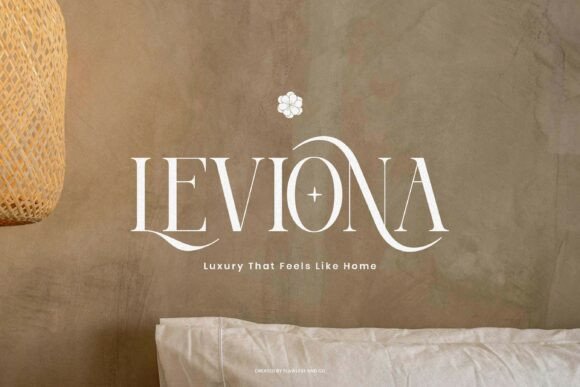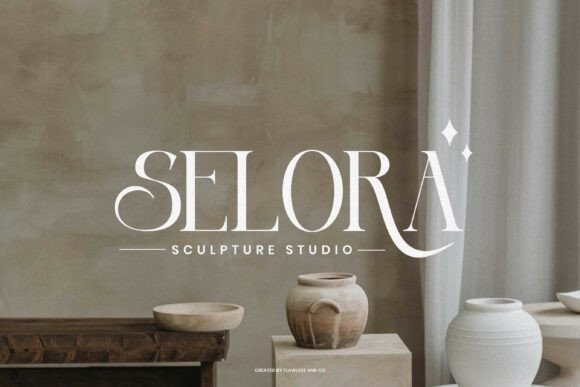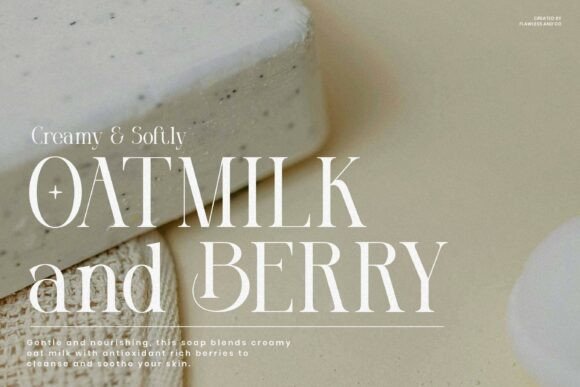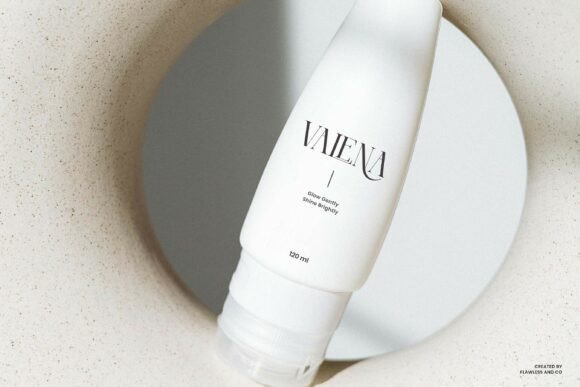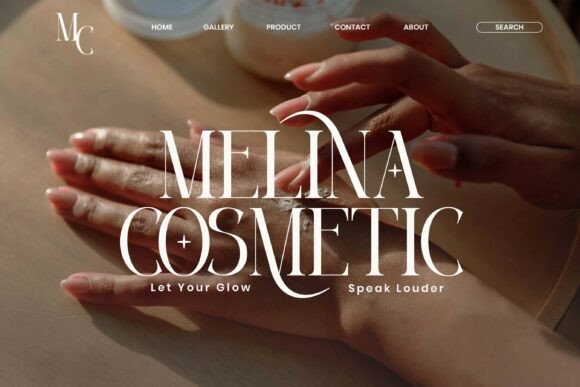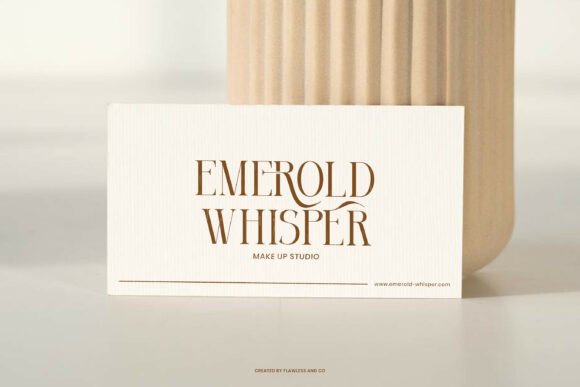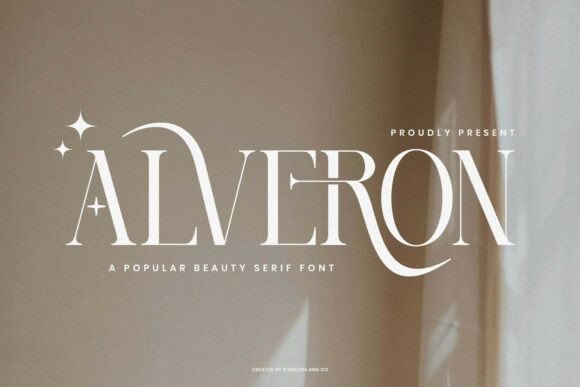
The Elusive Perfect Font: My Journey with Alveron
I’ll never forget the frustration of working on a high-end branding project, only to hit a roadblock: finding the perfect font. My client wanted something that exuded elegance, sophistication, and confidence. I scoured the internet, tried countless fonts, but nothing seemed quite right. That was until I stumbled upon Alveron, a modern serif typeface that instantly resonated with me.
With its refined contrast, sharp serifs, and graceful curves, Alveron struck the perfect balance between classic beauty and contemporary style. I knew immediately that it was the one. In this article, I’ll share my experience with Alveron, its features, and how to make the most of this stunning font.
An Honest Review of Alveron
• ✨ Elegant Design: Alveron’s refined contrast and sharp serifs make it perfect for high-end branding and editorial design.
• ✅ Versatility: This font is suitable for a wide range of applications, from packaging to logo design and wedding invitations.
• 💻 Stylish Alternates: Alveron comes with elegant ligatures and stylistic alternates, allowing for endless creative combinations.
• 📚 Easy to Read: Despite its elegant design, Alveron remains highly legible, even at smaller font sizes.
While Alveron is an exceptional font, there are a few minor quirks to be aware of:
• 🤔 Limited Use in Non-Design Software: Alveron’s advanced features might not work seamlessly in non-design software like Microsoft Word. However, with a little creativity, you can still achieve great results.
• ⚠️ Occasional Kerning Issues: As with any font, you might encounter occasional kerning issues. However, these can be easily adjusted in most design software.
The Story Behind Alveron
Alveron was designed with the goal of creating a modern serif typeface that embodies elegance, sophistication, and confidence. Inspired by classic serif fonts, the designer aimed to craft a font that balances classic beauty with contemporary style. The result is a versatile font suitable for a wide range of applications.
Q: What is Alveron best suited for?
A: Alveron is perfect for branding, editorial design, packaging, logo design, and wedding invitations.
Q: Does Alveron support OpenType features?
A: Yes, Alveron comes with elegant ligatures and stylistic alternates, allowing for endless creative combinations.
Q: Is Alveron difficult to read?
A: No, despite its elegant design, Alveron remains highly legible, even at smaller font sizes.